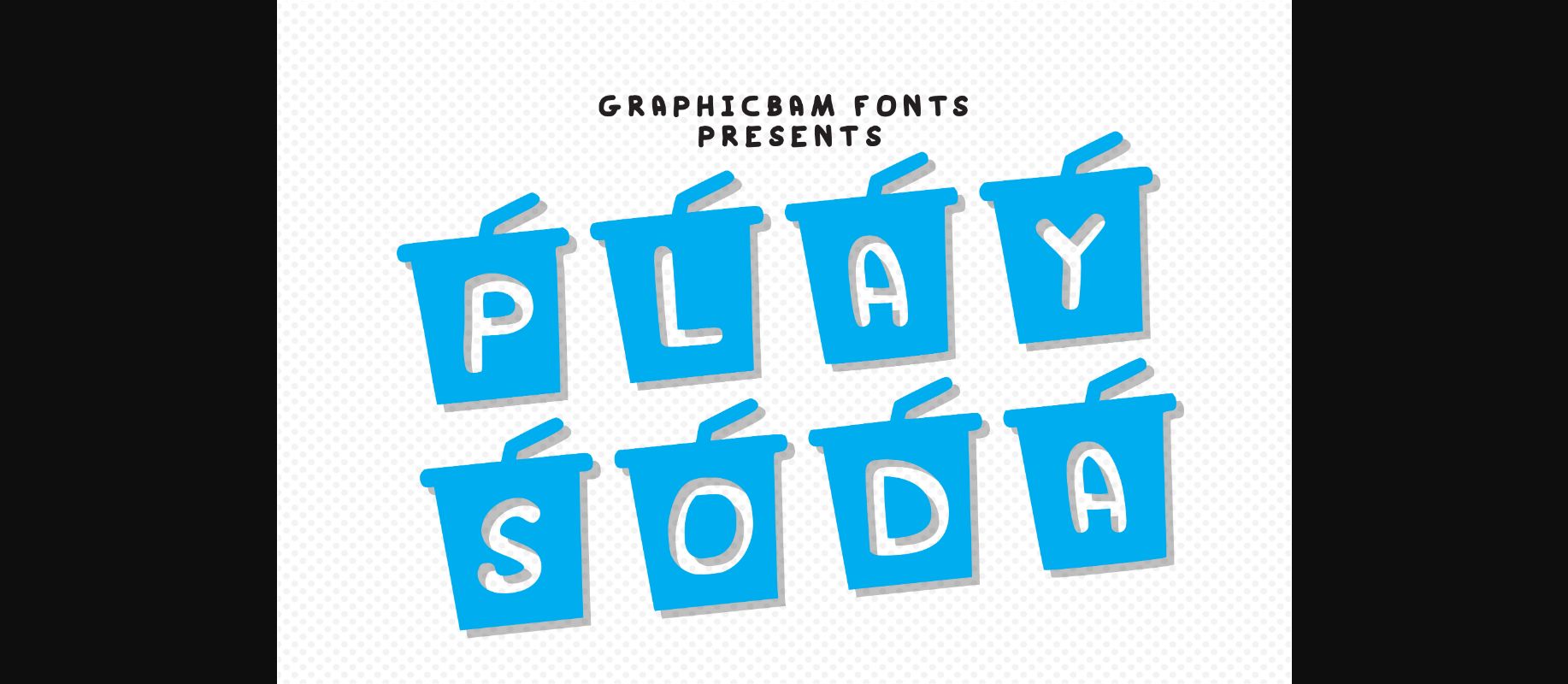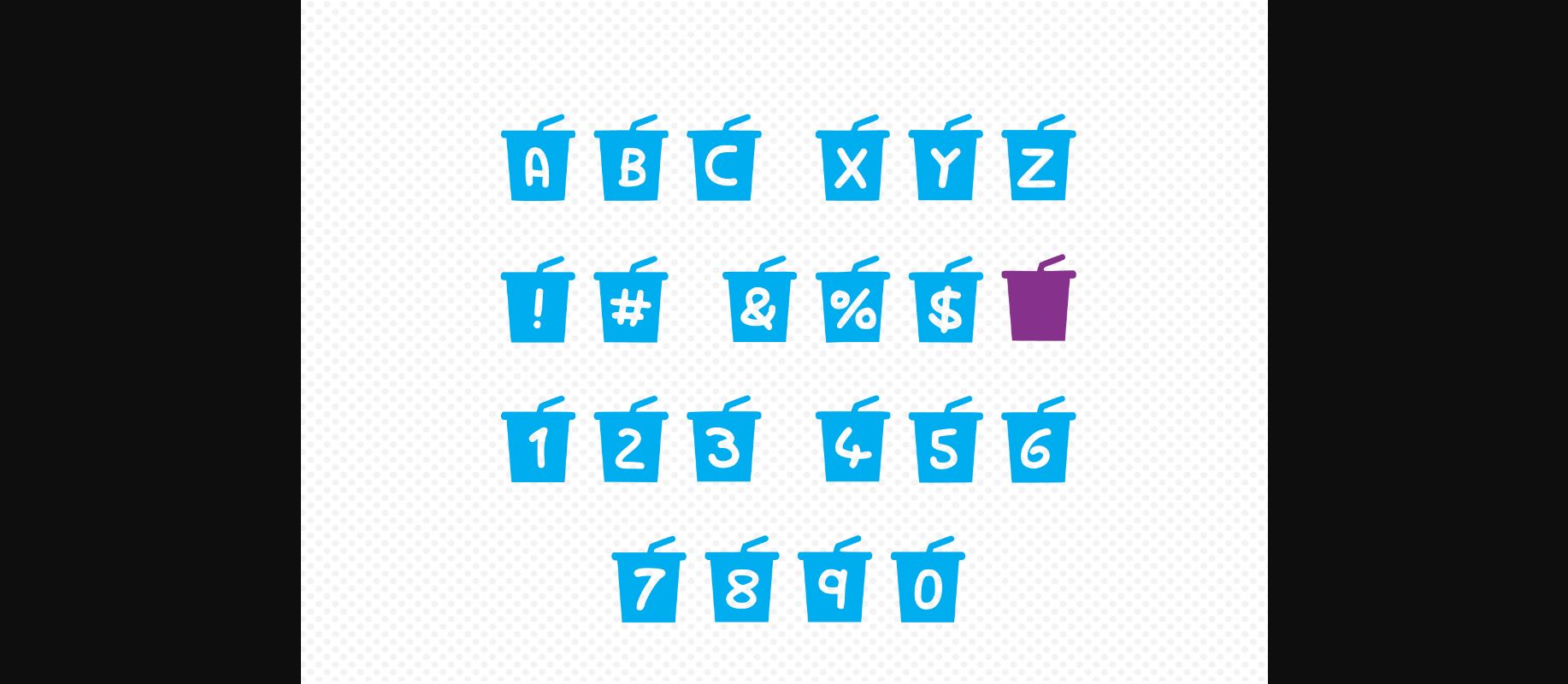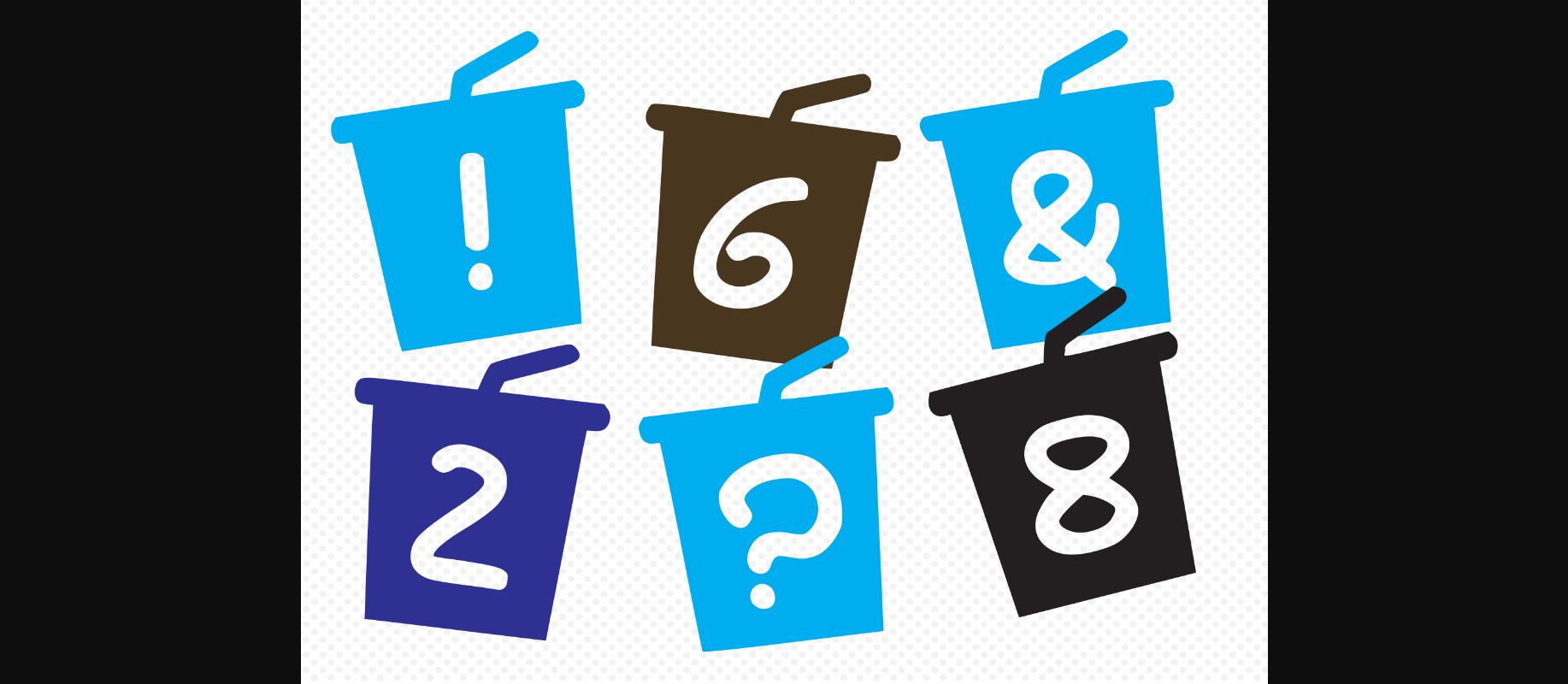
Play Soda Font
About Play Soda Font
Play Soda is a lovely decorative font, featuring a set of soda cups with a playful, child-like vibe. It embodies trendiness and authenticity and is the perfect choice for any children activity or school project.